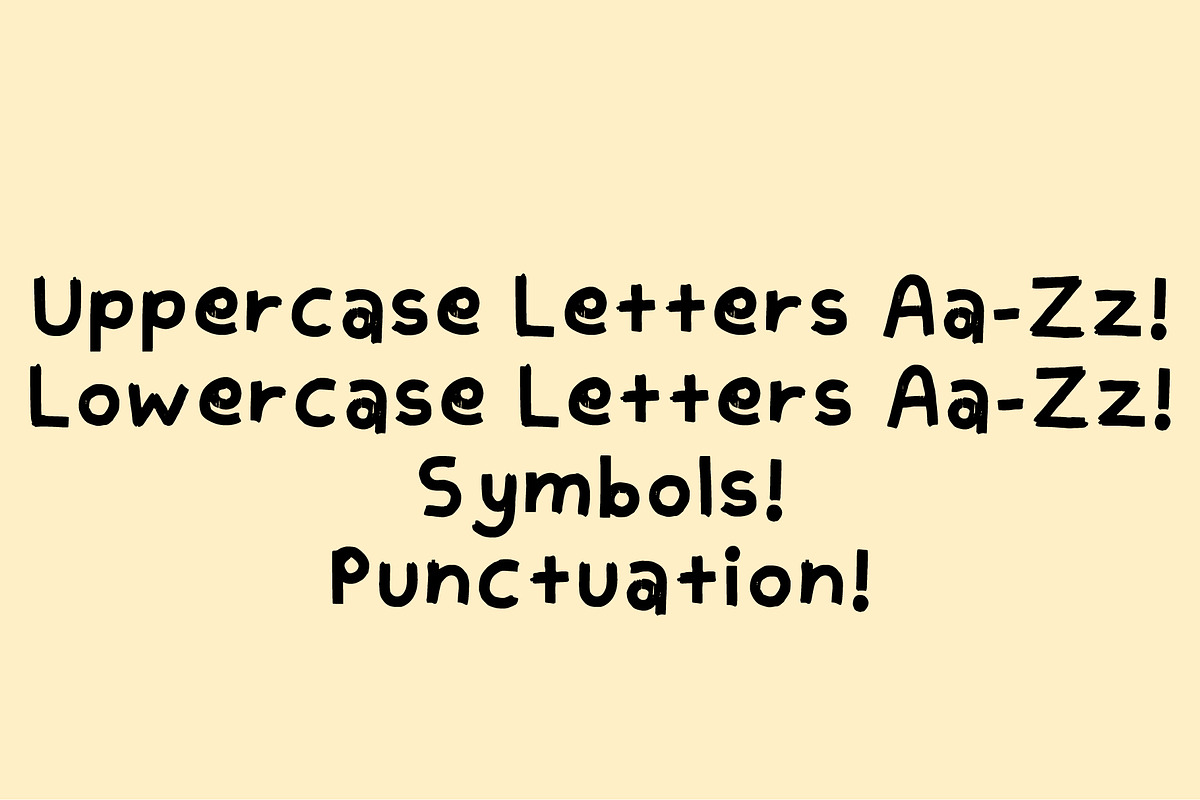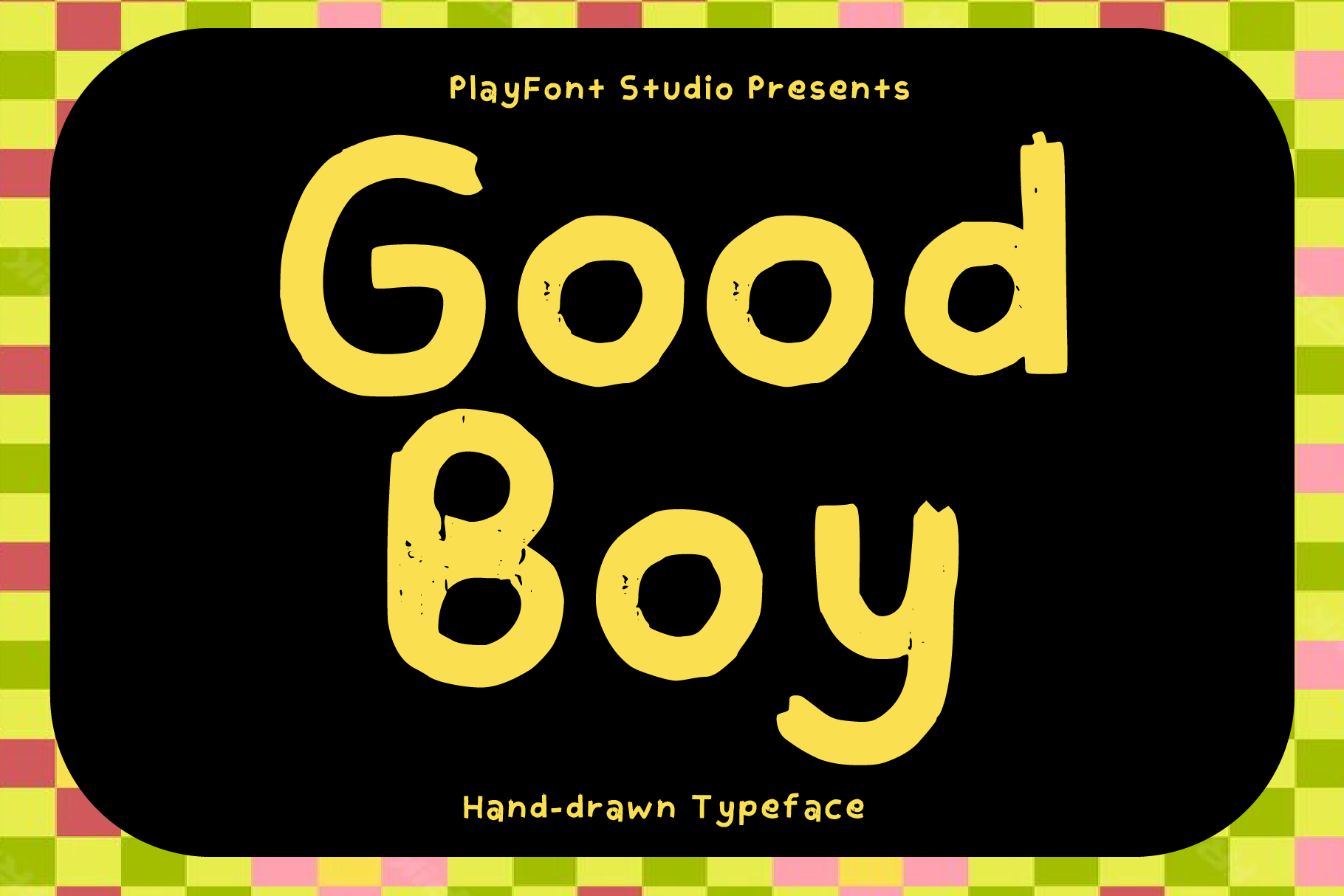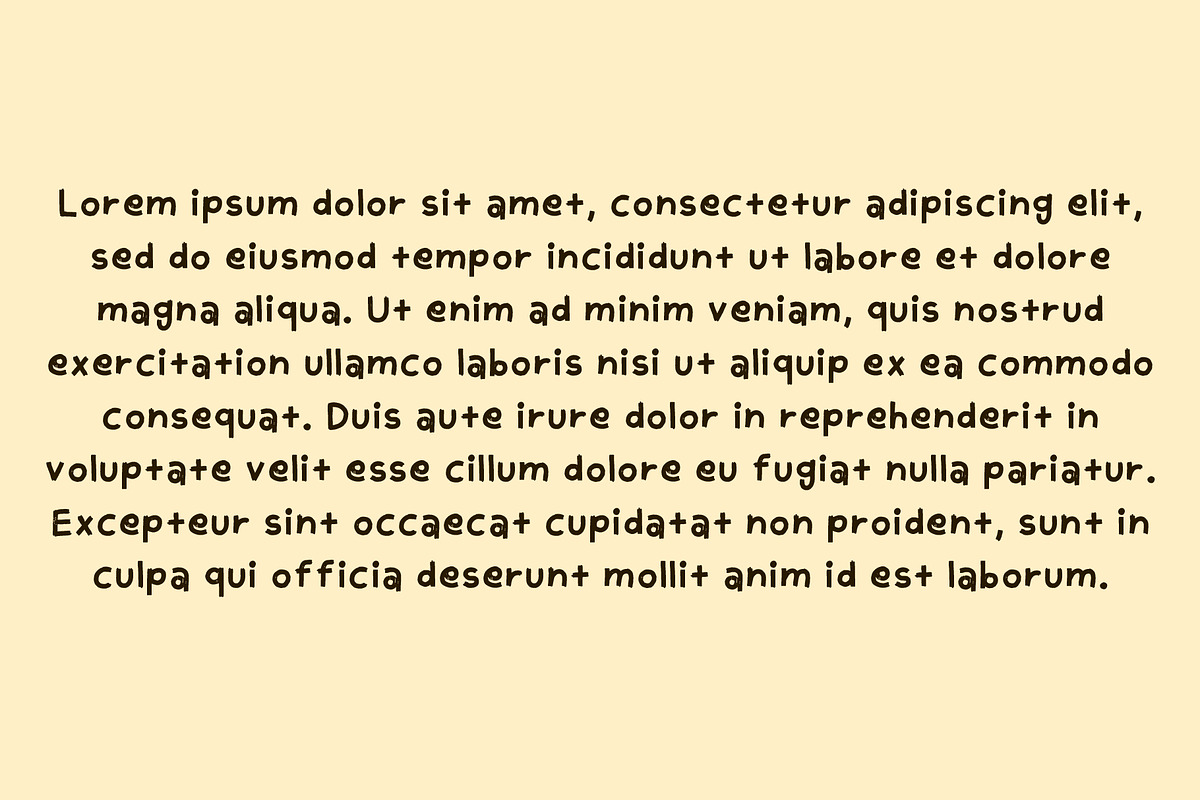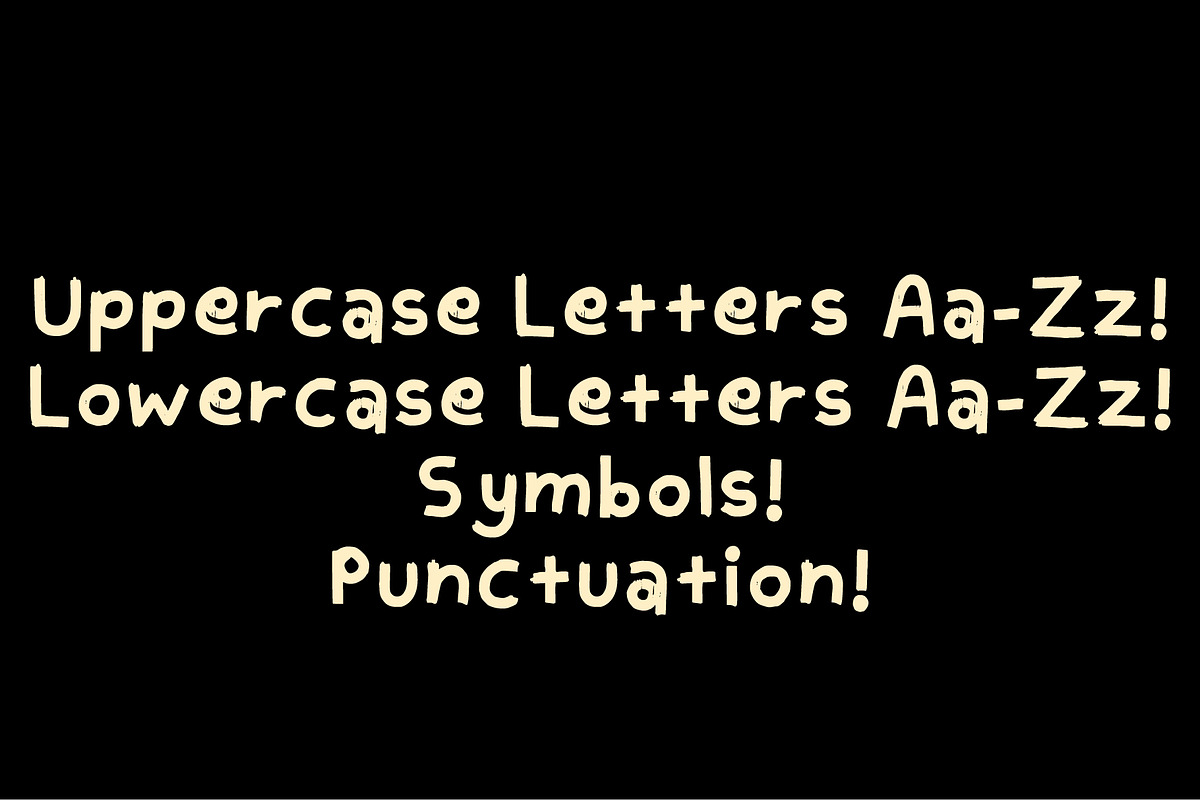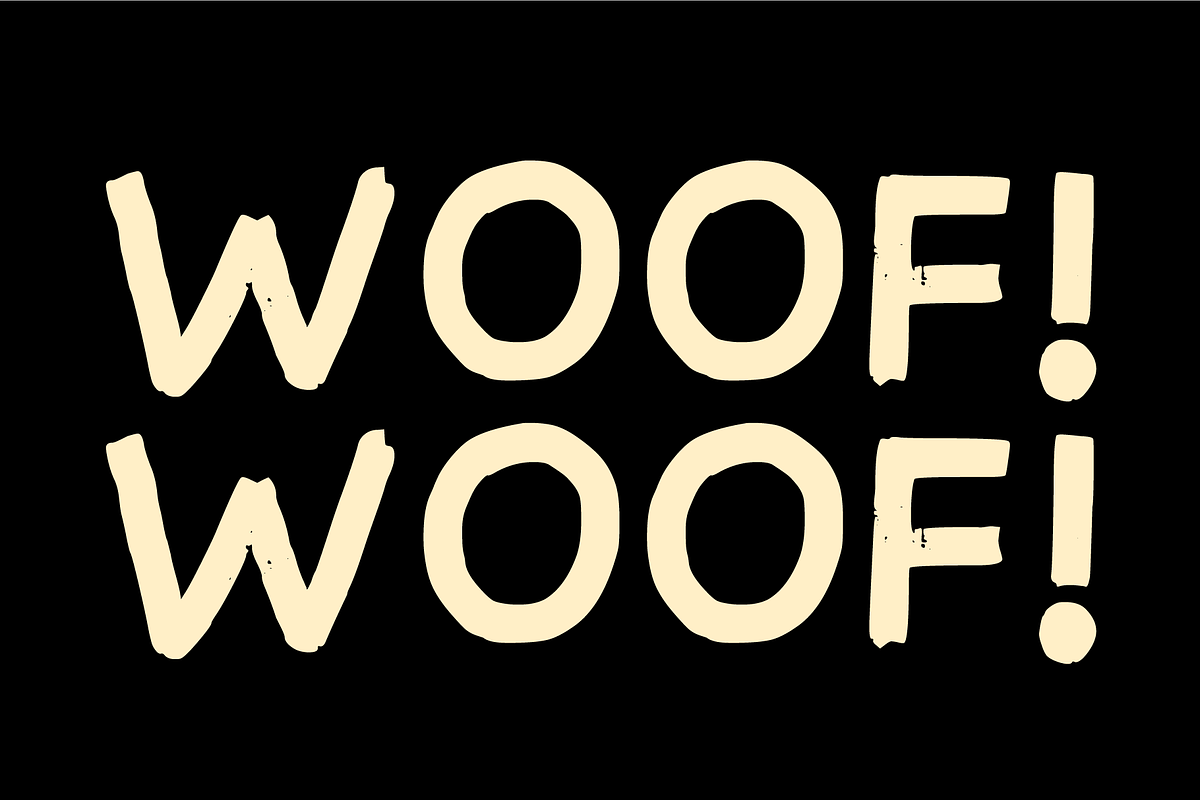
Good Boy! - A Handmade Font
WOOF WOOF! Introducing GoodBoy! A rough but smooth hand-drawn typeface. Perfect for all sorts of creative projects that need an extra touch of personality.
What's in the font? Uppercase Letters A-Z! Lowercase Letters a-z! Numbers! Symbols! Punctuation! (See slides)